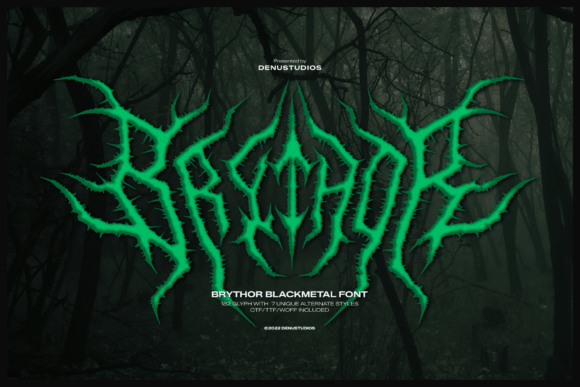
Unleashing the Fury of Brythor Font: A Designer’s Dream Come True
I still remember the frustration of working on a project for a heavy metal band, searching for the perfect font to capture their raw energy and dark aesthetic. The usual fonts just didn’t cut it – they were either too tame or too over-the-top. That’s when I stumbled upon the Brythor font, and it was love at first sight! 💥
Characterized by its sharp, thorn-like extensions and intricate, chaotic structure, Brythor perfectly embodies the spirit of extreme music and gothic aesthetics. With 182 glyphs and seven unique alternate styles, this aggressive and visually striking black metal typeface is an ideal choice for band logos, concert posters, album covers, and high-intensity apparel designs.
What I Love About Brythor Font ✨
- ✅ Unique and Memorable Design: Brythor’s sharp, thorn-like extensions and intricate structure make it stand out from other fonts.
- ✅ Highly Versatile: With seven alternate styles and 182 glyphs, you can create complex and customized titles that fit your project’s needs.
- ✅ Perfect for Dark and Edgy Projects: Brythor’s raw energy and dark aesthetic make it an ideal choice for heavy metal band logos, concert posters, and album covers.
While Brythor is an amazing font, there are a few things to keep in mind:
- 🤔 Can be Overwhelming: Brythor’s intricate design can be overwhelming if not used correctly. Make sure to balance it with plenty of white space.
- 🤔 Limited Use Cases: While Brythor is perfect for dark and edgy projects, it may not be the best choice for more elegant or sophisticated designs.
The Story Behind Brythor Font
Brythor was designed with one goal in mind: to create a font that captures the raw energy and dark aesthetic of extreme music and gothic culture. The designer, inspired by the likes of heavy metal bands and dark art, set out to create a typeface that would stand out from the crowd. With its sharp, thorn-like extensions and intricate structure, Brythor is the perfect embodiment of this vision.
Q: What type of projects is Brythor best suited for?
A: Brythor is perfect for dark and edgy projects, such as heavy metal band logos, concert posters, album covers, and high-intensity apparel designs.
Q: Can I customize Brythor to fit my project’s needs?
A: Yes, Brythor comes with seven alternate styles and 182 glyphs, allowing you to create complex and customized titles that fit your project’s needs.